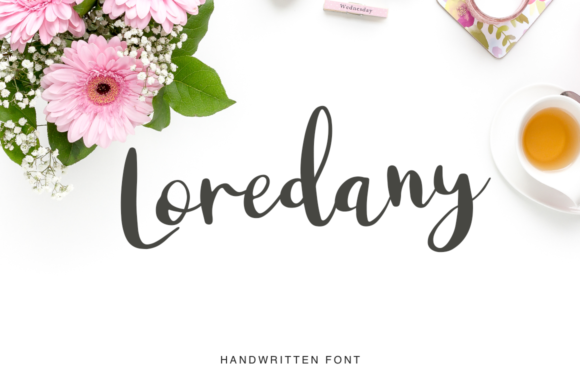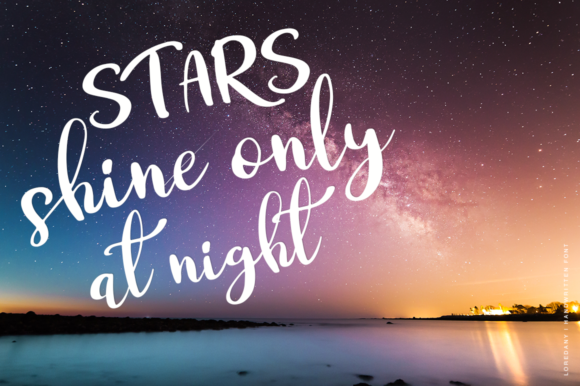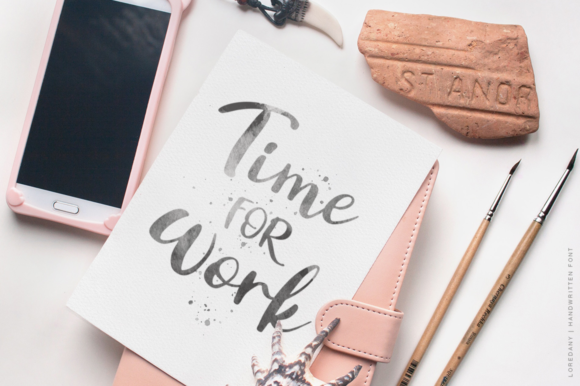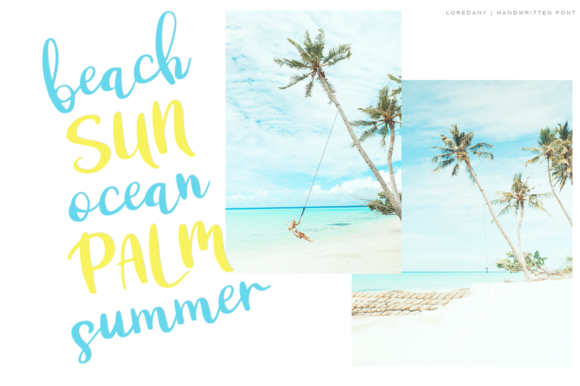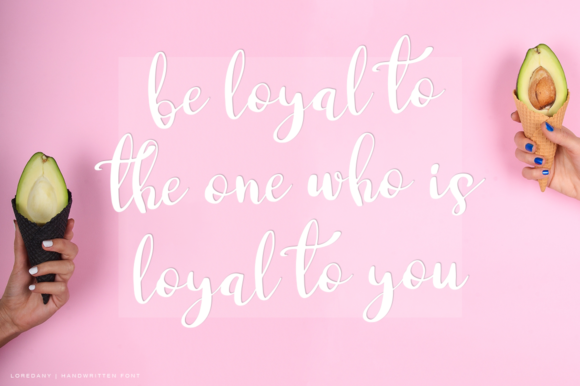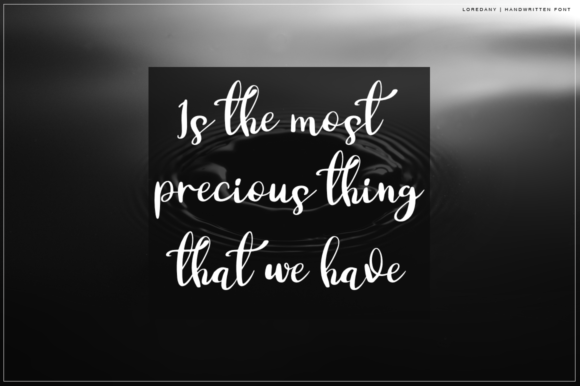
HomeScript FontsLoredany Font Script Fonts Loredany Font FacebookXPinterestWhatsApp Loredany Font Poster 2 Loredany Font Poster 3 Loredany Font Poster 4 Loredany Font Poster 5 Loredany Font Poster 6 About Loredany Font Loredany script- a new fresh handmade calligraphy font. It’s ideal for branding and decorating your projects. DOWNLOAD NOW People also explored Bianca Romantic Font Font Dark Angel Authentic Font Autumn Breeze Font Chalktastic Font Raphiqes Font Shiro Font Cendro Font Red Joo Font 377 0 TagsLoredany Font Previous articleZabrig FontNext articleRamolina Script Font LEAVE A REPLY Cancel reply Comment: Please enter your comment! Name:* Please enter your name here Email:* You have entered an incorrect email address! Please enter your email address here Website: Save my name, email, and website in this browser for the next time I comment. Personal Use Free Market Love Personal Use Free Read more about this font Bonifaciy Personal Use Free Read more about this font Propaniac Personal Use Free Read more about this font Handayani Personal Use Free Read more about this font BLOG Using Fonts in Digital Marketing: Tips to Strengthen Your Brand Identity In the realm of digital marketing, every visual element plays a crucial role in shaping a brand's identity, and fonts are no exception. The... Exploring Font Trends To increase your work productivity, choose the most readable fonts. Top 7 Google Fonts Alternatives for Faster and Privacy-Friendly Web Design (2025)